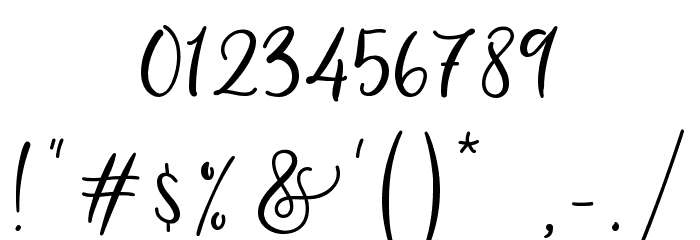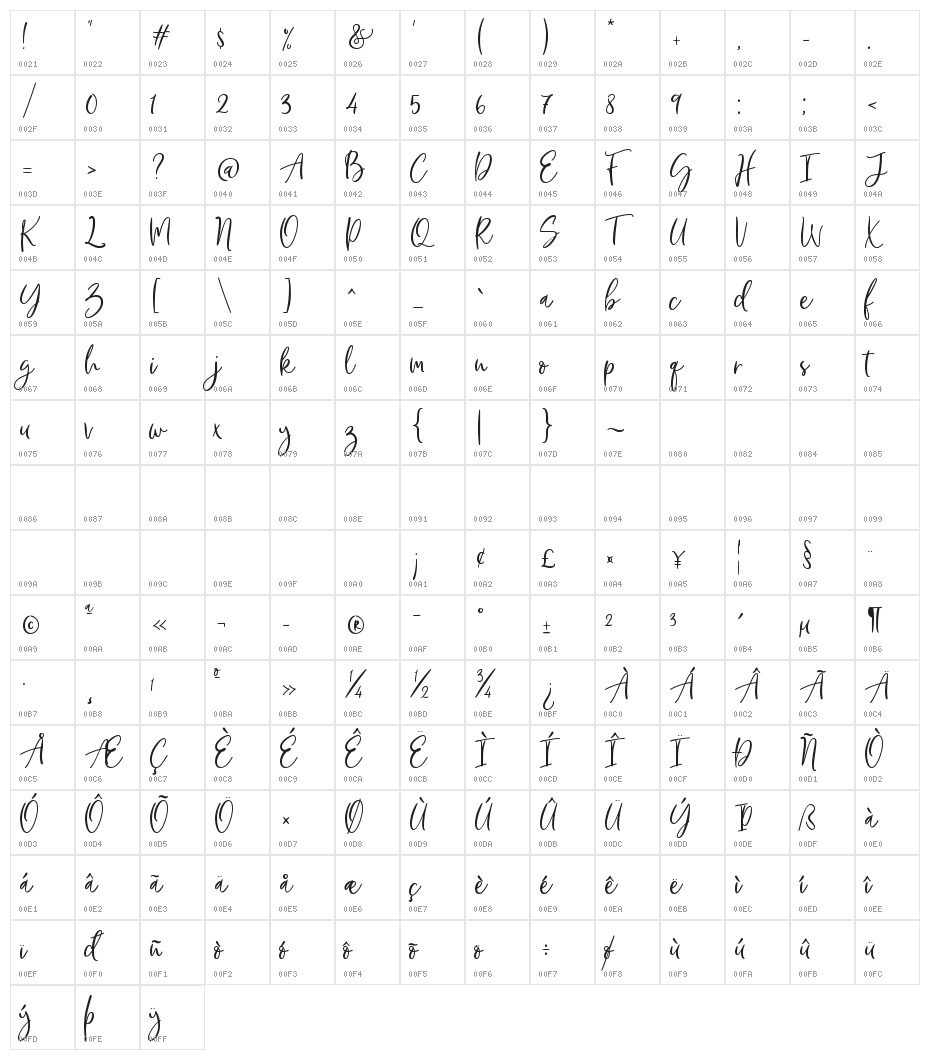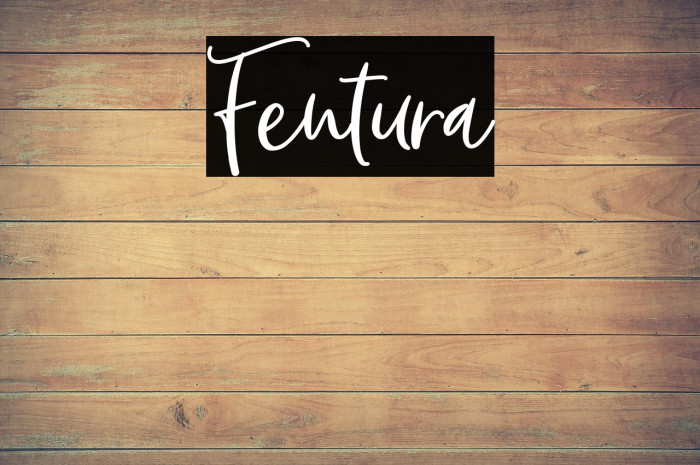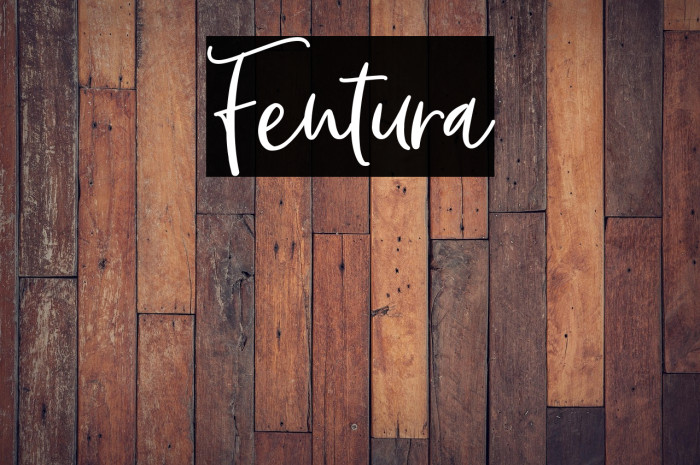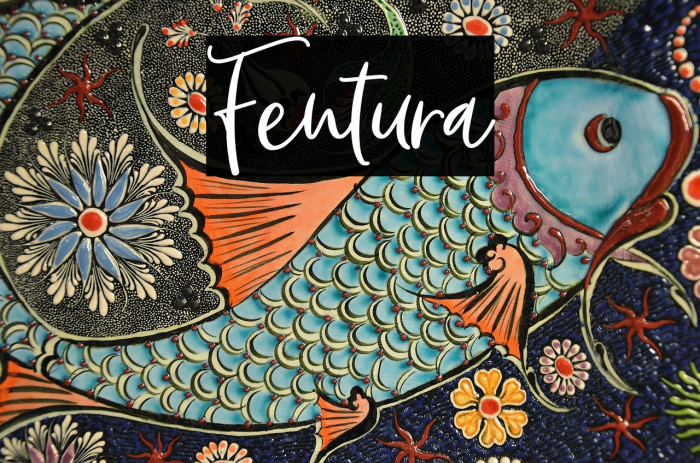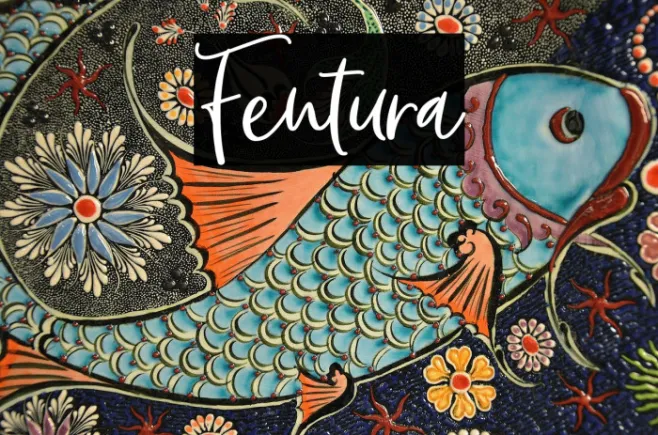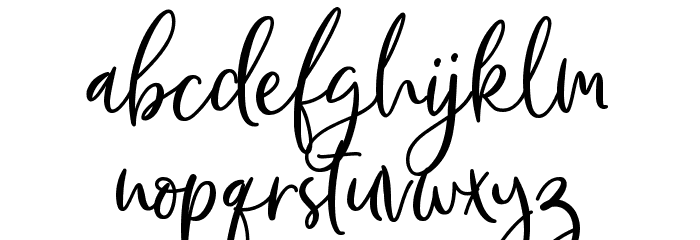
Fentura Font
Fentura Description
This font features a lively and expressive handwritten style, characterized by its fluid and dynamic strokes. The uppercase letters are bold and slightly slanted, giving a sense of movement and energy. The lowercase letters maintain a consistent flow, with some letters featuring loops and curls that add to the overall playful aesthetic. The numerals are clear and legible, matching the style of the alphabet with their rounded and smooth forms. Special characters are creatively designed to complement the handwritten theme, offering versatility in various design contexts.
| Proposed Projects | Ideal for creative projects such as greeting cards, invitations, branding, and social media graphics where a personal touch is desired. |